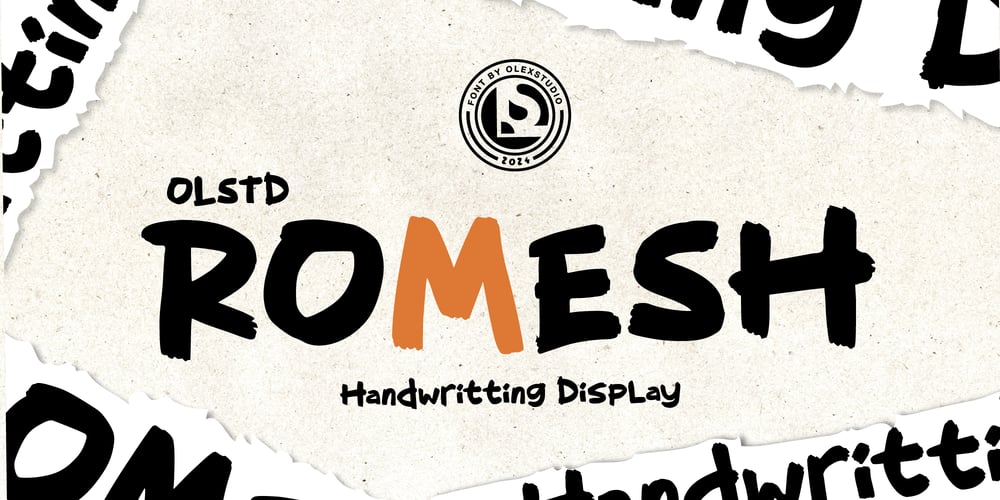
Romesh Olstd Font Family was designed by Firman Syah and published by Olexstudio. Romesh Olstd contains 1 styles and family package options. ROMESH olstd – Display Font will look gorgeous on all your designs, poster design, comic book, kids book, book design, branding materials, logo’s, and all project design other.WHAT’S INCLUDEDROMESH olstd – Display Font contains standard characters, Uppercase, Uppercase Alternates, Lowercase, numbers, punctuation and international glyphs.